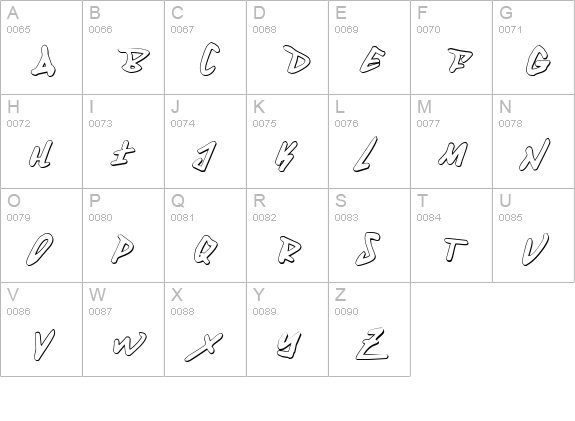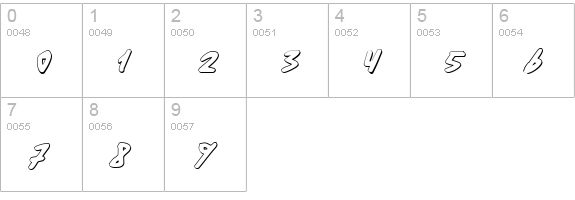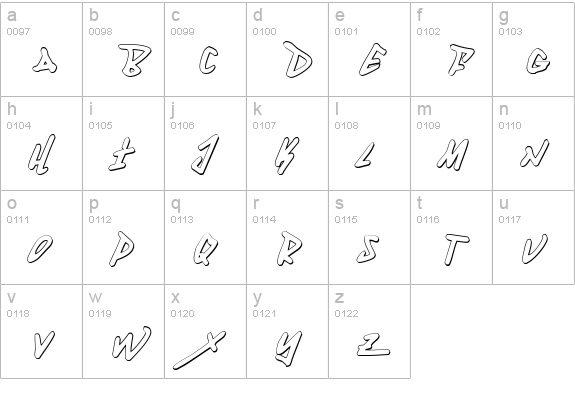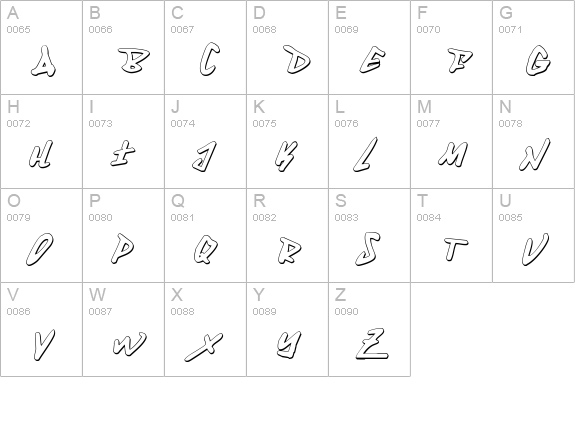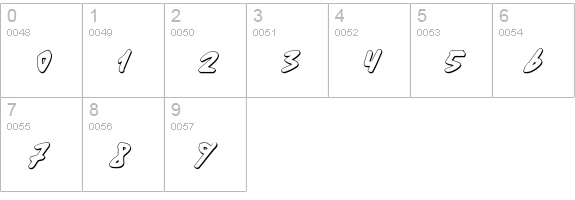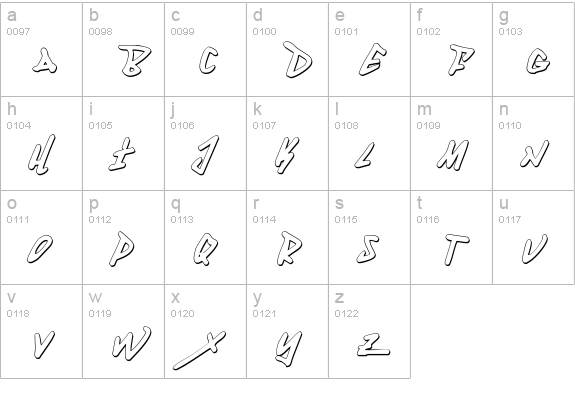
Fantom 3D Italic is a distinctive, italic variant in the Fantom typeface family \xE2\x80\x94 well suited to design and typography projects.
Fantom 3D Italic font is a striking and modern typeface that exudes a sense of depth and dimensionality. Its sleek design and italicized style add a touch of elegance and sophistication to any project. The 3D effect of this font creates a visually captivating appearance that will make your text stand out. What sets Fantom 3D Italic font apart is not only its unique design but also the fact that it is available for free download at FontsMarket.com. This means that you can easily access this eye-catching font and use it in your designs without any cost involved. Whether you're working on a branding project, a website design, or any other creative endeavor, Fantom 3D Italic font is sure to make a memorable impact. Download it today and elevate your typography game with this stunning and freely available typeface.